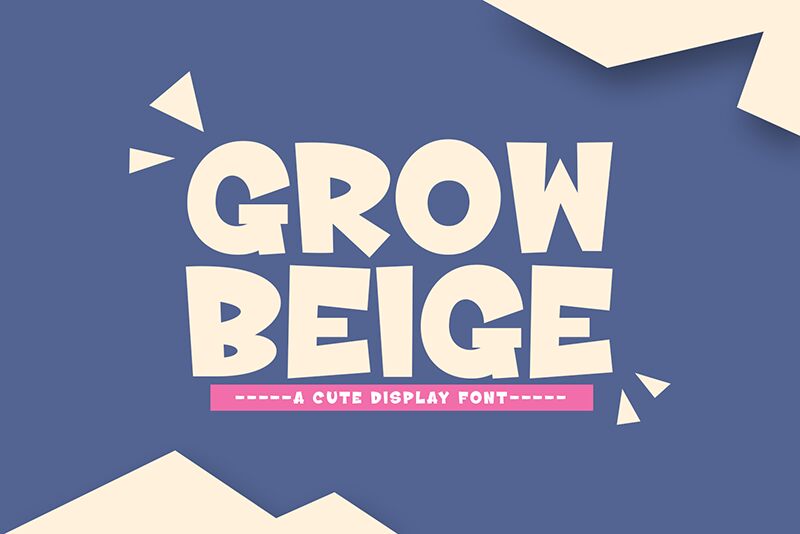
Grow Beige
Grow Beige font designed by Khurasan is a cartoon-style, bold, and rounded display font. Each letter is built of different-sized shapes, creating a character with an expressive aesthetic that fits in a casual mood. Beside the overall cute cartoon look of this chunky free font, its style still has some retro inspiration that makes it special.